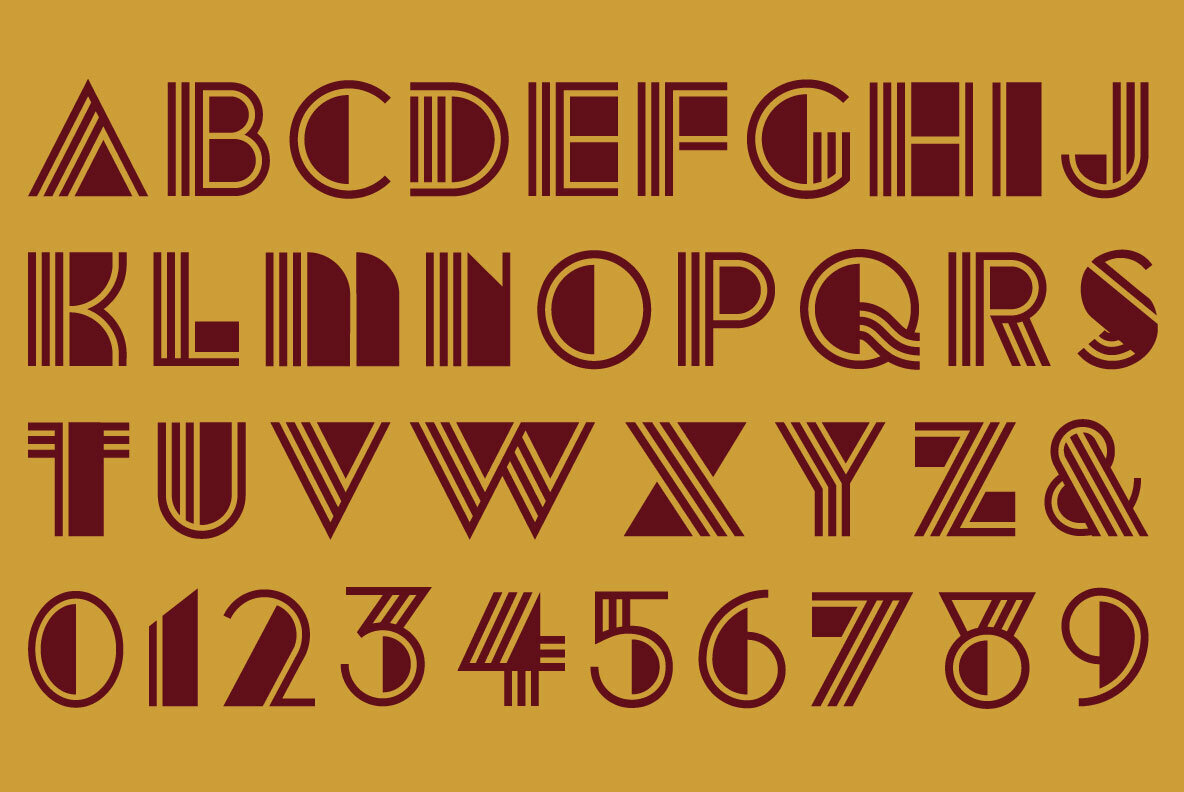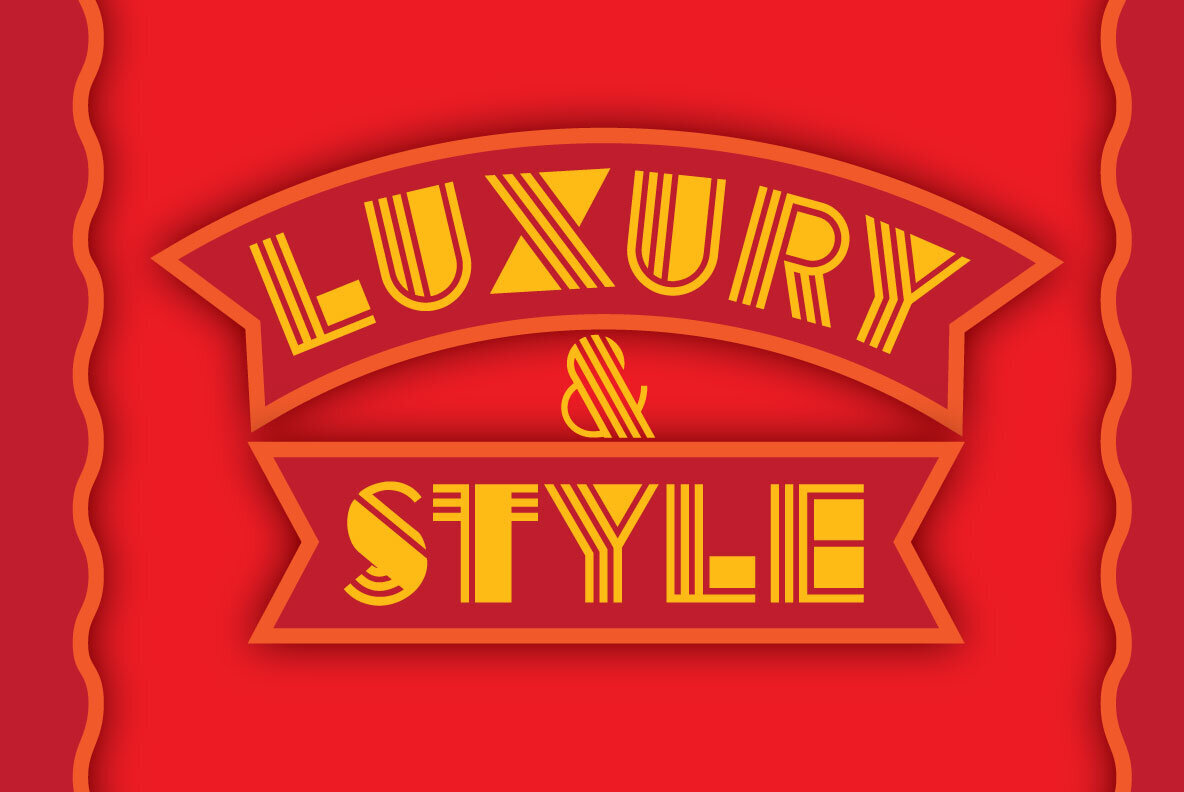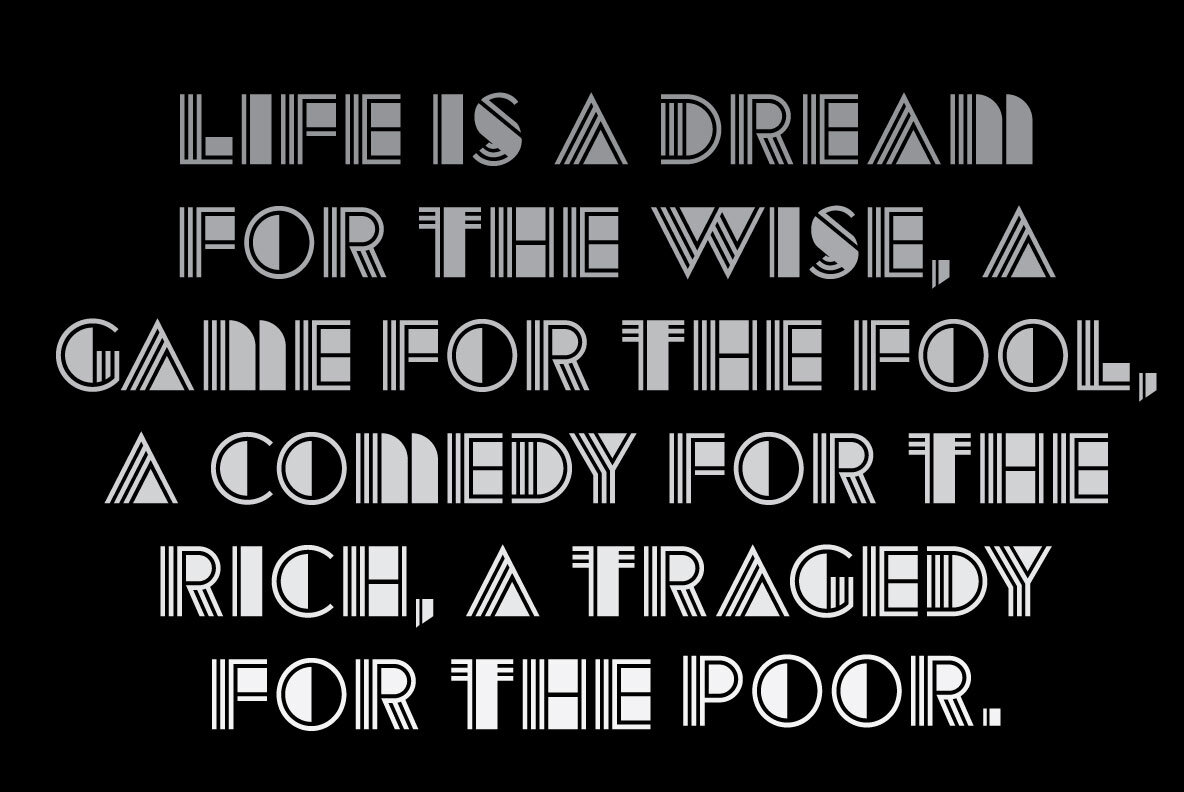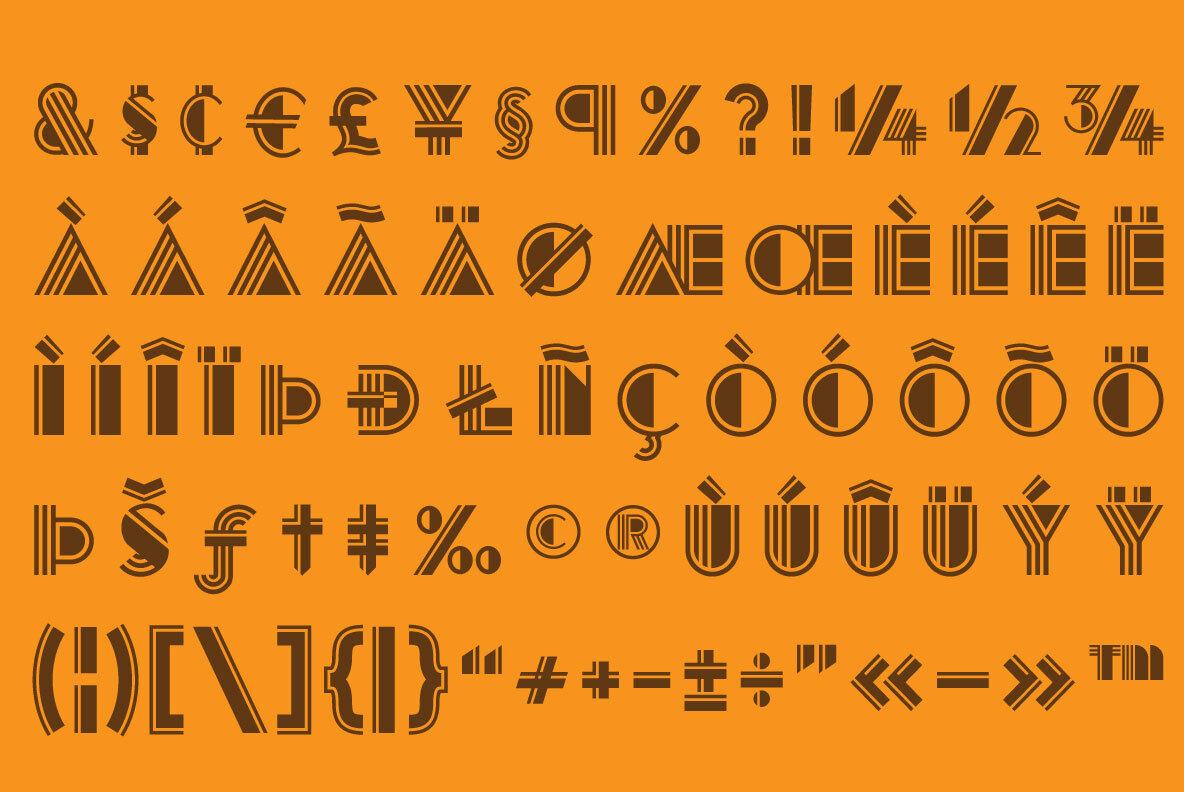
Deco Duo No.1 Font
Deco Duo No 1
Deco Duo No.1 is a captivating font pair that blends the ancient allure of Egypt with the sleek lines of modern design. Drawing inspiration from hieroglyphic inscriptions and Art Deco artistry, these fonts exhibit geometric precision and bold shapes, evoking the timeless elegance of golden sands and towering obelisks. Ideal for designs that require a sophisticated touch, Deco Duo seamlessly integrates into high-tech branding as well as contemporary art settings.
With a clean, minimalist aesthetic, these typefaces offer a reimagined take on Art Deco motifs. Their opulent yet forward-thinking presence enhances everything from invitations and logos to packaging and editorial spreads. Choose Deco Duo No.1 to infuse your projects with a harmonious blend of historical grandeur and futuristic sophistication.